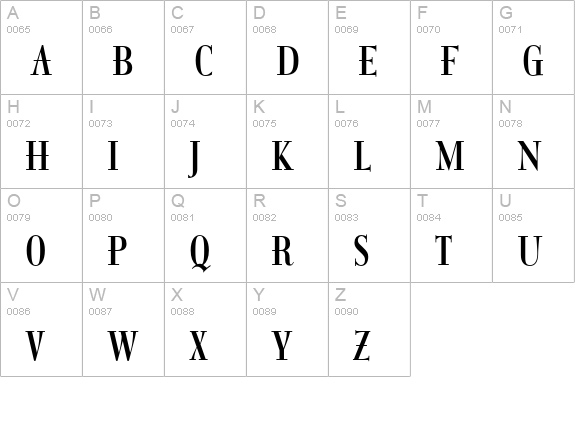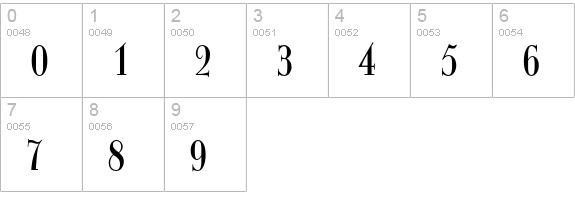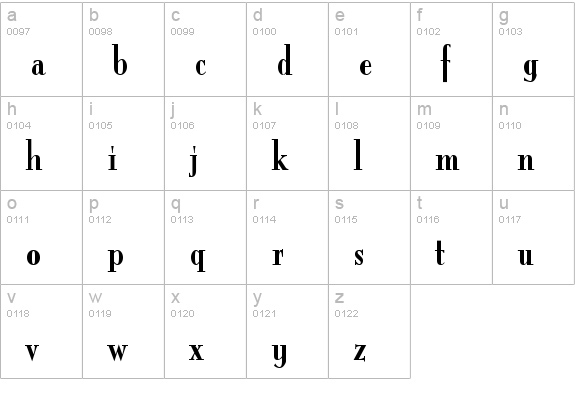
ItingOpti-RegularCondensed Font Details
Introducing ItingOpti-RegularCondensed, a sleek and stylish font that will elevate your designs to new heights. This font exudes elegance and sophistication, making it perfect for a wide range of projects. ItingOpti-RegularCondensed features a condensed design, allowing you to fit more text in less space without sacrificing readability. Its clean lines and balanced proportions ensure that your message will be conveyed with clarity and impact. But what sets ItingOpti-RegularCondensed apart is not just its impeccable design—it's the fact that it is available for free. Yes, you heard that right. This incredible font is freely available to download at FontsMarket.com, making it accessible to designers of all levels. Whether you're working on a branding project, creating eye-catching headlines, or designing stunning print materials, ItingOpti-RegularCondensed will take your designs to the next level. Its versatility allows it to be used in a variety of contexts, from modern and edgy to classic and elegant. With ItingOpti-RegularCondensed, you have the freedom to unleash your creativity without any limitations. Say goodbye to the days of scouring the internet for the perfect font and embrace the ease and convenience of downloading this remarkable font at FontsMarket.com. So what are you waiting for? Download ItingOpti-RegularCondensed today and unlock a world of design possibilities. Whether you're a professional designer or a hobbyist, this font will become an invaluable tool in your creative arsenal. Don't miss out on this opportunity to enhance your designs with a font that is both visually stunning and freely available.